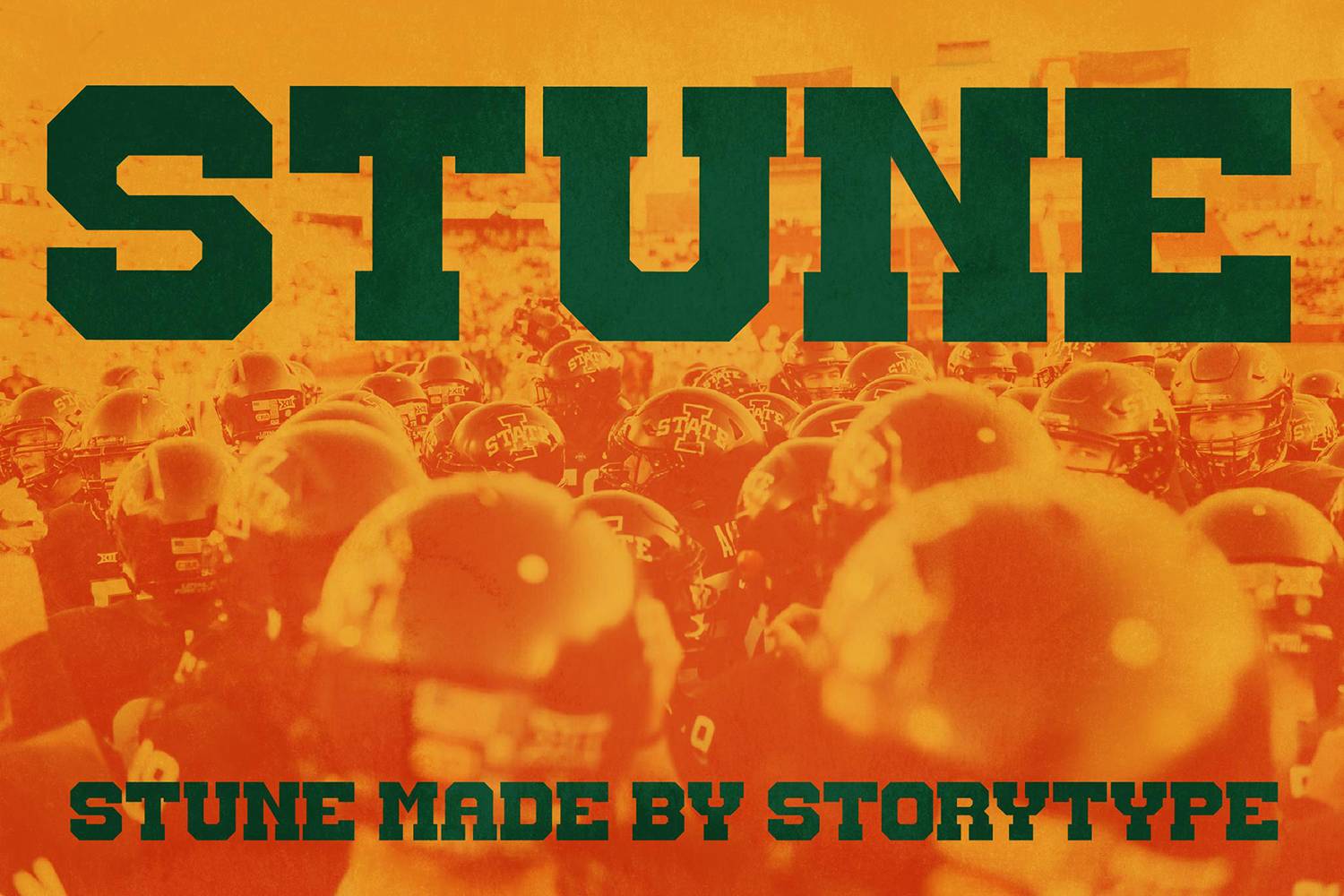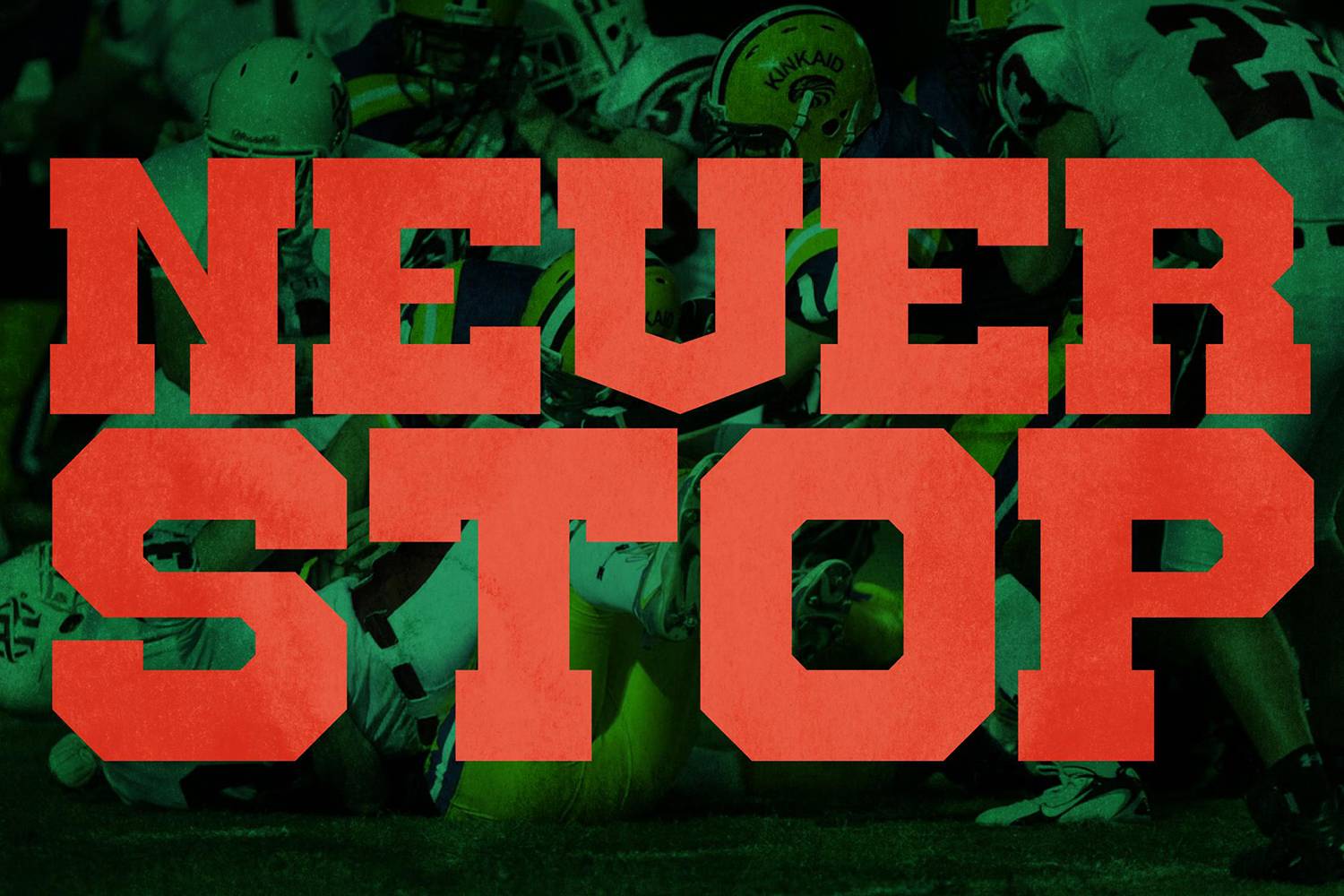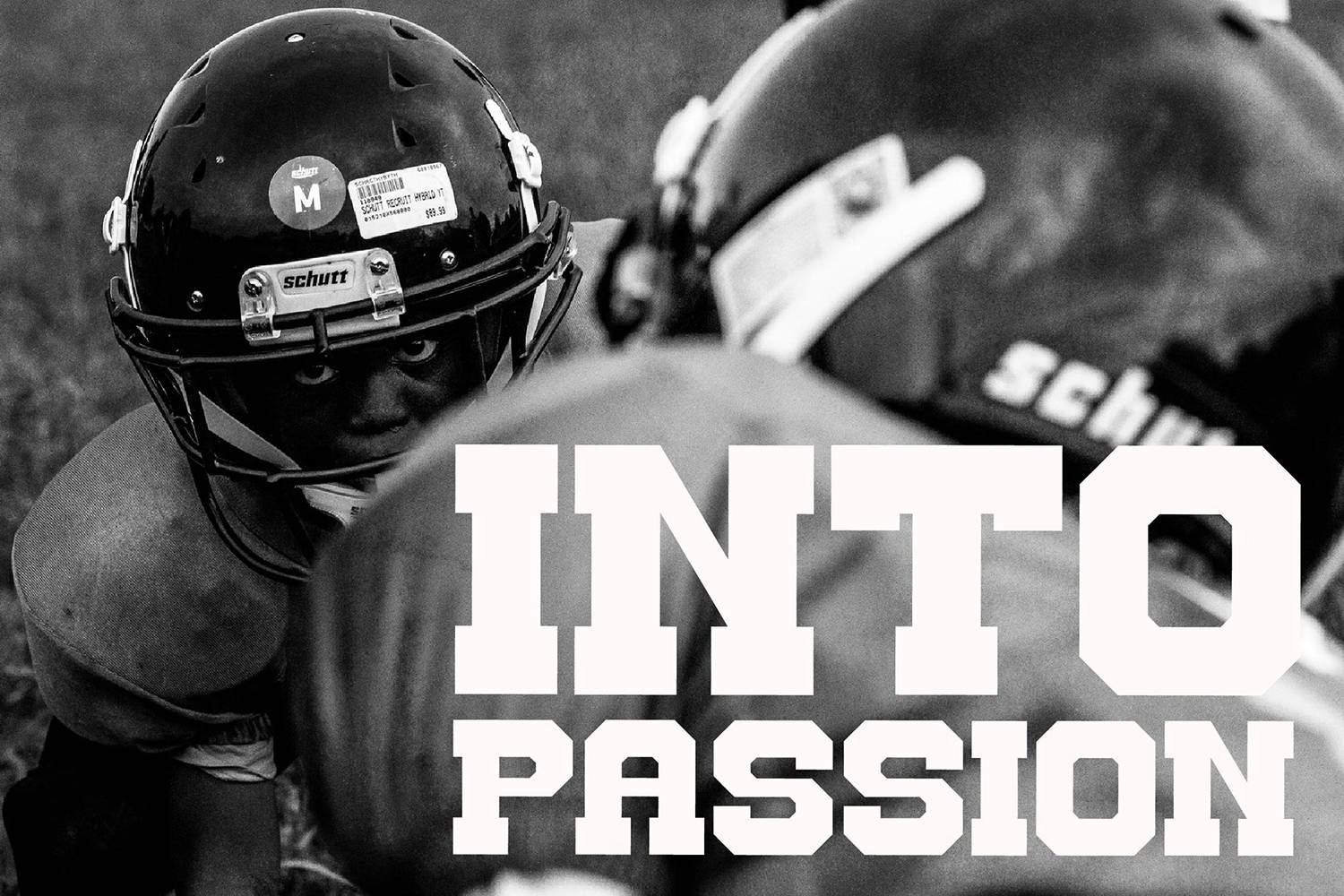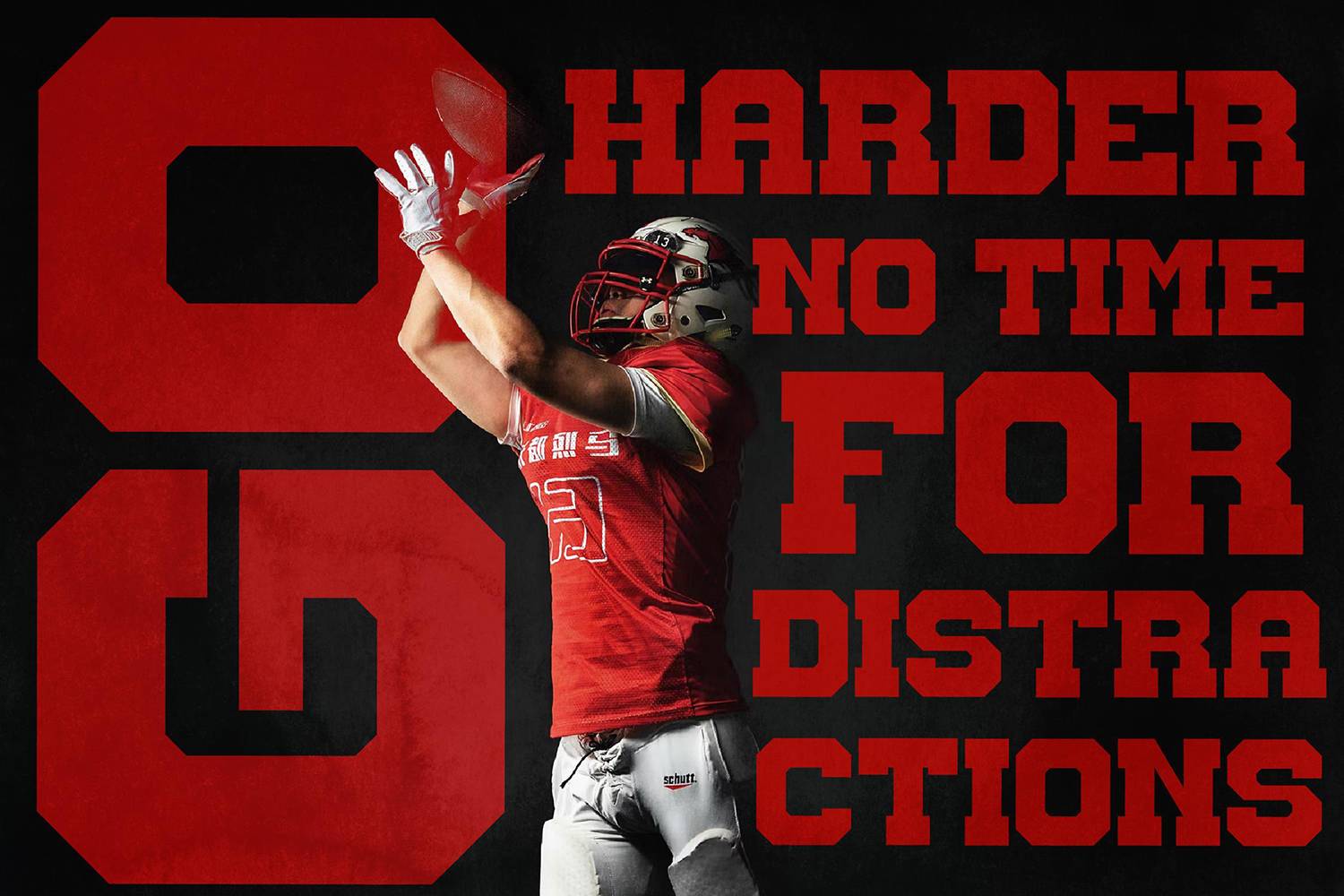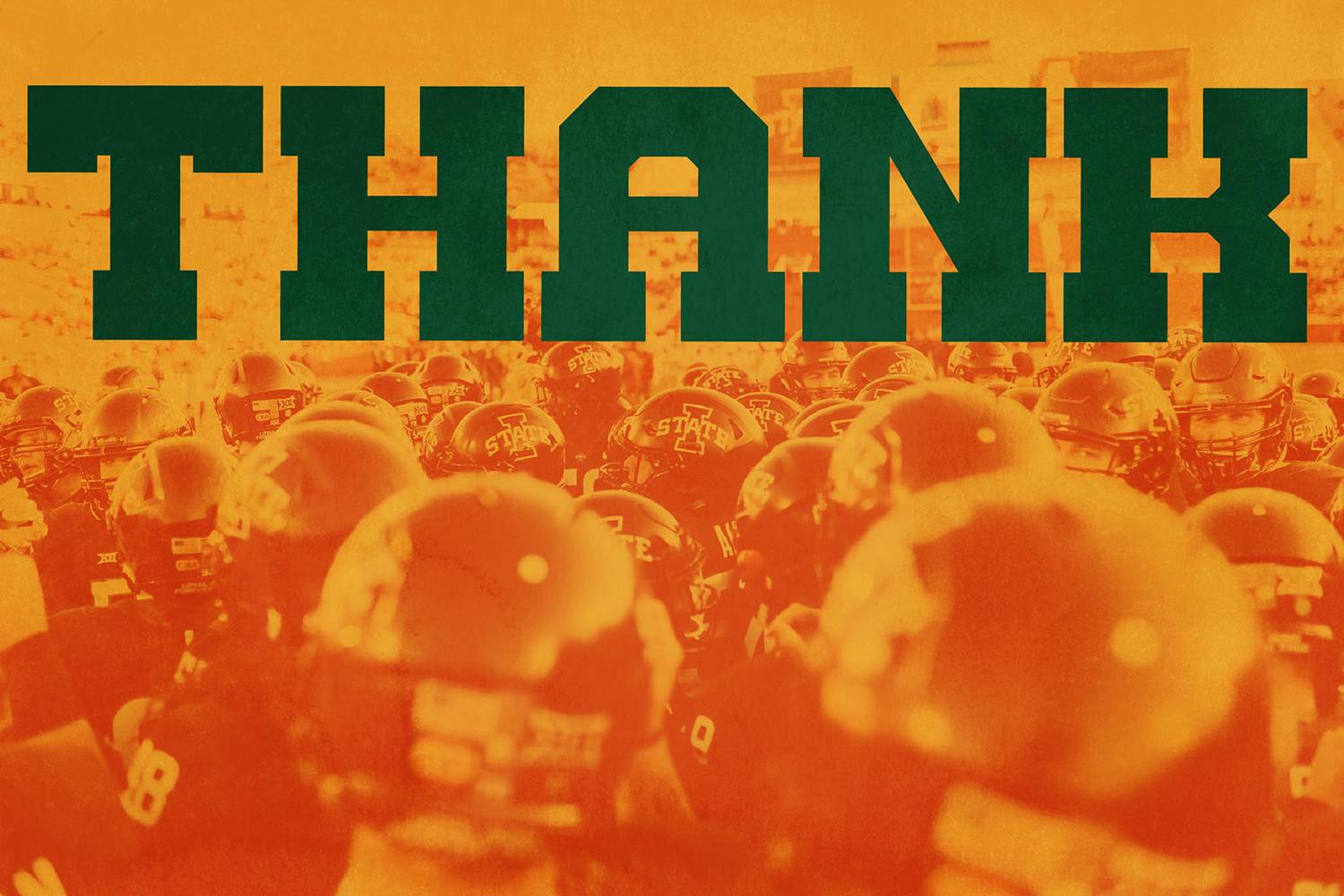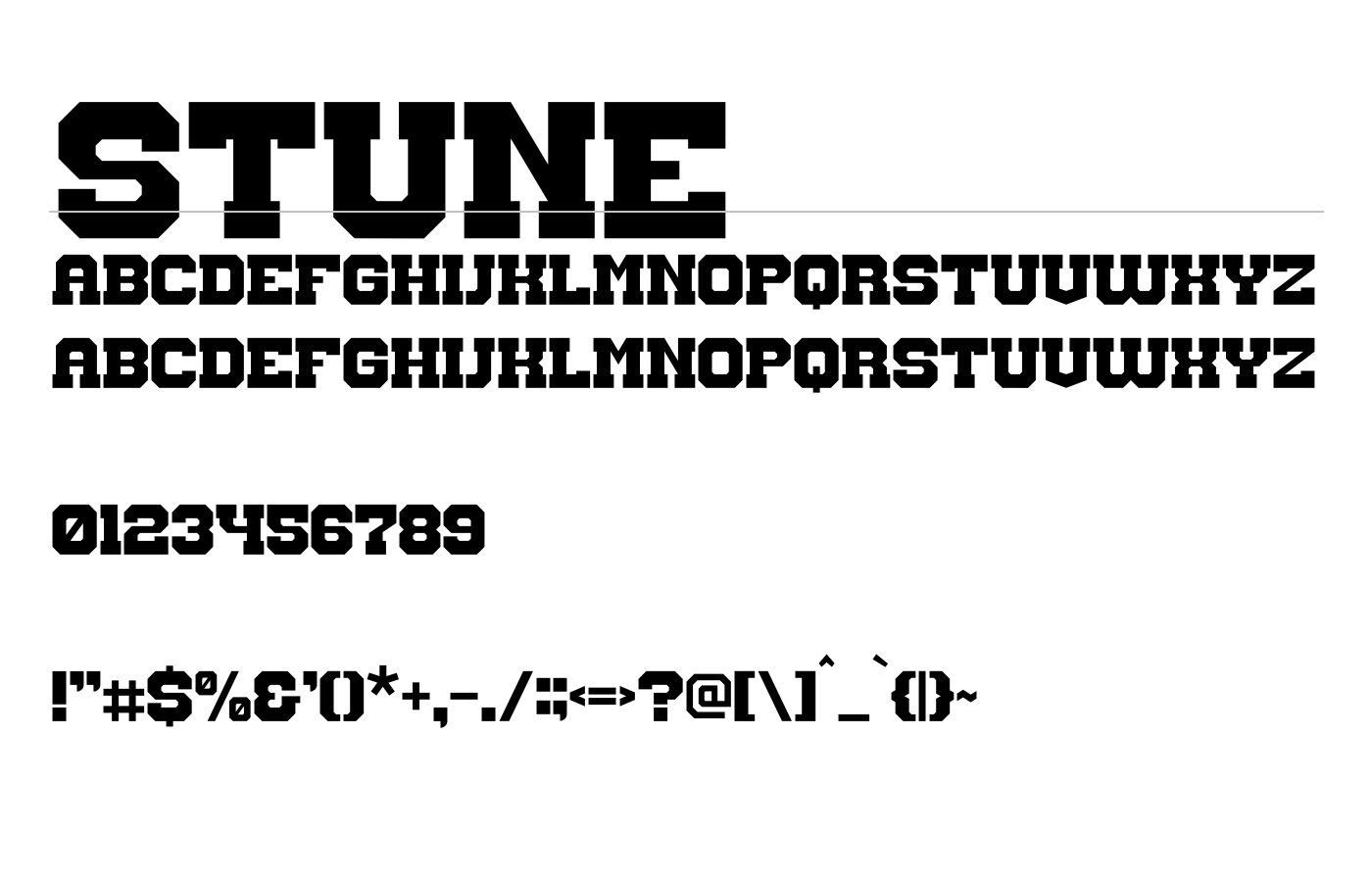
Stune is a bold, condensed slab serif font characterized by its strong, blocky letterforms with thick, unbracketed serifs and a slightly geometric feel. Its high contrast and heavy weight give it a powerful, impactful presence, making it perfect for headlines, logos, and branding that need to convey strength and confidence. This font works well for sports, industrial, or vintage-inspired designs that require a commanding and sturdy look.
Stune Font
About Stune Font